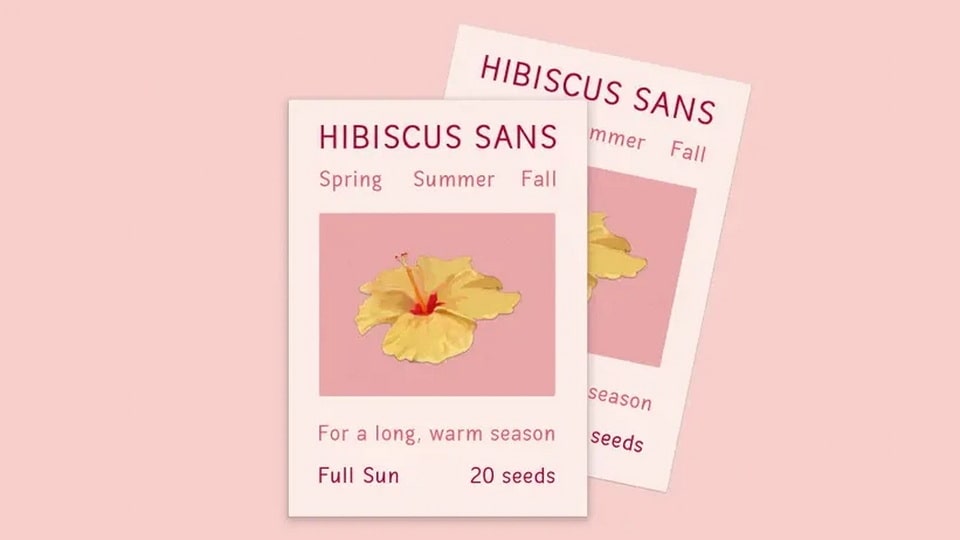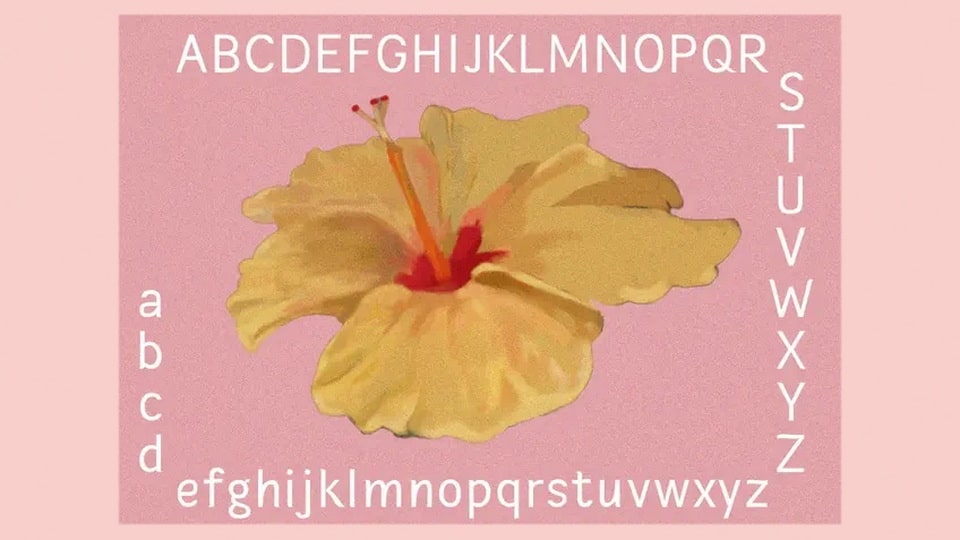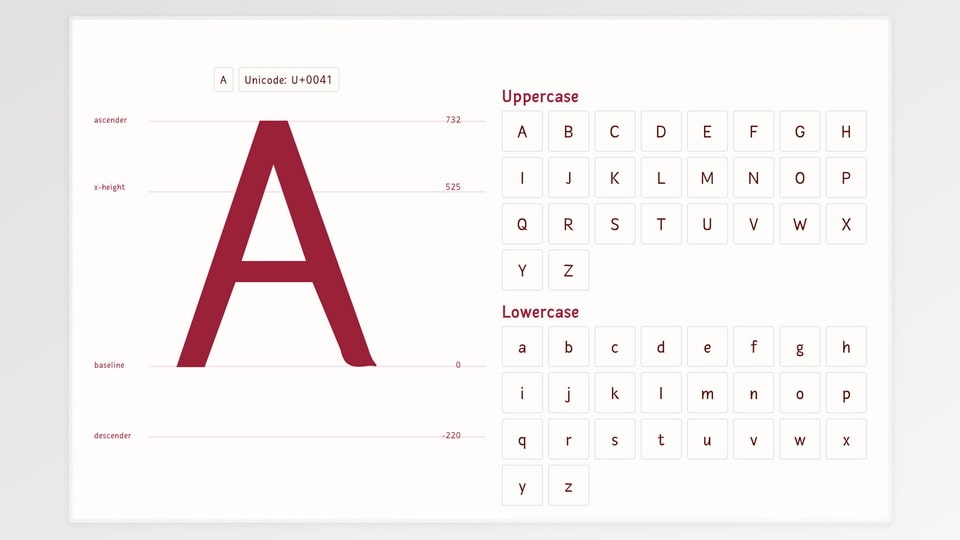
Hibiscus Sans is a playful sans-serif typeface with a charming handwritten touch, designed to bring joy and personality to any project. Its rounded forms, irregular lines, and casual rhythm create a friendly and approachable aesthetic, perfect for designs that need a human and whimsical feel.
With its blend of clean sans-serif structure and sketchy hand-drawn energy, this font is ideal for children’s books, greeting cards, branding, social media graphics, and creative packaging. Whether you're crafting cheerful headlines or adding a touch of warmth to digital content, Hibiscus Sans font delivers a delightful and informal visual impact.
Lively, light-hearted, and full of character—Hibiscus Sans is like a happiness in every letter.